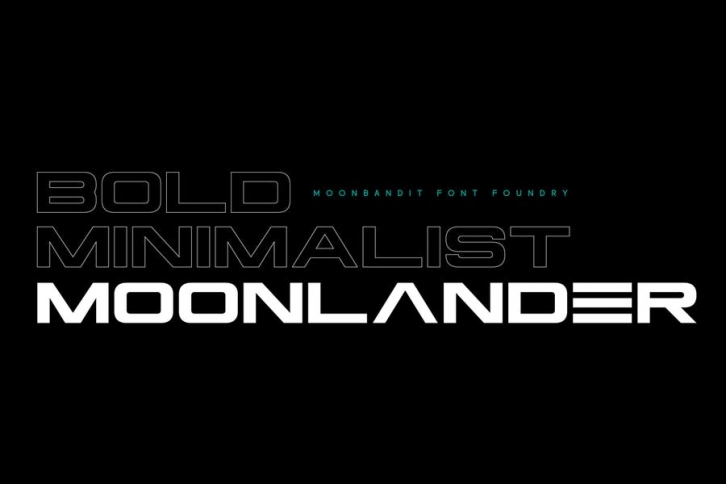
Moonlander, a modern futuristic, bold and wide sans serif font.This clean and sharp typeface is inspired from the lively urban lifestyle and can be perfect as a headline, title, logo, branding.